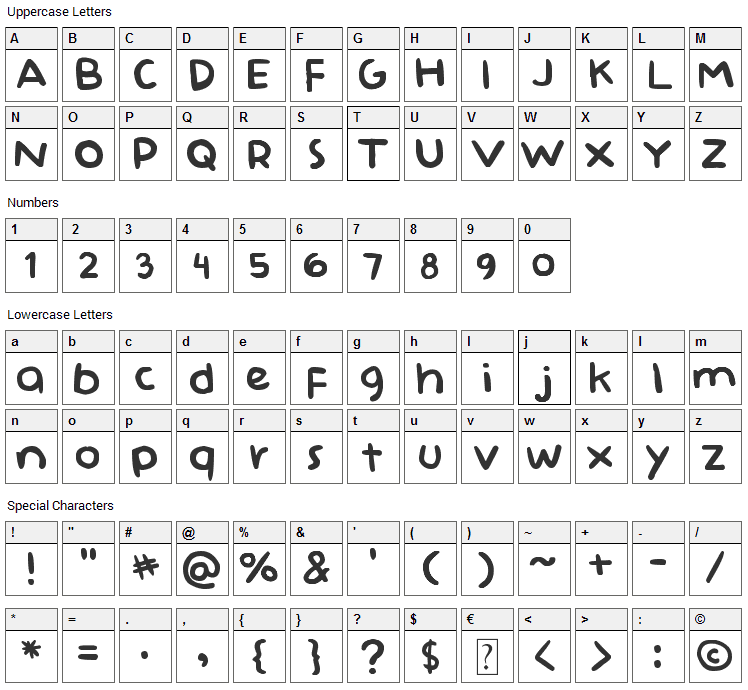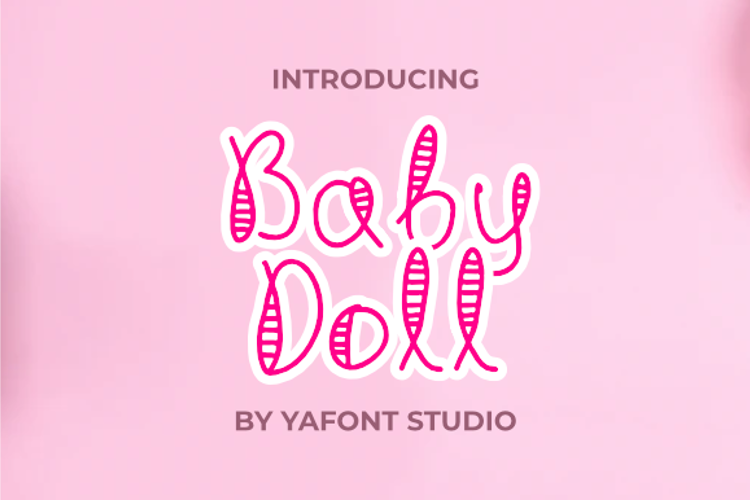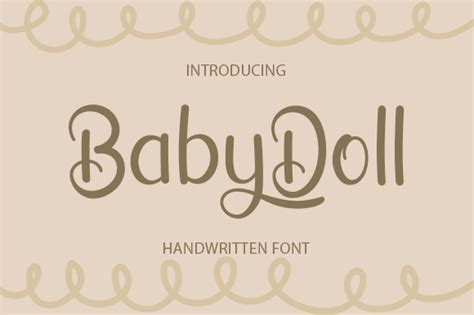
Baby Doll Font
Baby Doll Font - Web baby doll € by denne. Web babydoll is a romantic and sweet handwritten font with characters and alternates that seem to dance along the. A b c d e f g h i j k l m n o p q r s t u v w x y z # 3d. 2,650,266 downloads (923 yesterday) 4 comments free for.
Web baby doll € by denne. A b c d e f g h i j k l m n o p q r s t u v w x y z # 3d. 2,650,266 downloads (923 yesterday) 4 comments free for. Web babydoll is a romantic and sweet handwritten font with characters and alternates that seem to dance along the.
Web baby doll € by denne. Web babydoll is a romantic and sweet handwritten font with characters and alternates that seem to dance along the. 2,650,266 downloads (923 yesterday) 4 comments free for. A b c d e f g h i j k l m n o p q r s t u v w x y z # 3d.
Baby Doll Font
2,650,266 downloads (923 yesterday) 4 comments free for. Web baby doll € by denne. Web babydoll is a romantic and sweet handwritten font with characters and alternates that seem to dance along the. A b c d e f g h i j k l m n o p q r s t u v w x y z #.
Baby Doll Script Font
Web babydoll is a romantic and sweet handwritten font with characters and alternates that seem to dance along the. 2,650,266 downloads (923 yesterday) 4 comments free for. Web baby doll € by denne. A b c d e f g h i j k l m n o p q r s t u v w x y z #.
Web babydoll is a romantic and sweet handwritten font with characters and alternates that seem to dance along the. A b c d e f g h i j k l m n o p q r s t u v w x y z # 3d. 2,650,266 downloads (923 yesterday) 4 comments free for. Web baby doll € by.
2,650,266 downloads (923 yesterday) 4 comments free for. Web baby doll € by denne. A b c d e f g h i j k l m n o p q r s t u v w x y z # 3d. Web babydoll is a romantic and sweet handwritten font with characters and alternates that seem to dance along.
Baby Doll Font by GoodMoodType · Creative Fabrica
A b c d e f g h i j k l m n o p q r s t u v w x y z # 3d. Web baby doll € by denne. Web babydoll is a romantic and sweet handwritten font with characters and alternates that seem to dance along the. 2,650,266 downloads (923 yesterday) 4 comments free.
Baby Doll Font Download
Web babydoll is a romantic and sweet handwritten font with characters and alternates that seem to dance along the. A b c d e f g h i j k l m n o p q r s t u v w x y z # 3d. Web baby doll € by denne. 2,650,266 downloads (923 yesterday) 4 comments free.
Web babydoll is a romantic and sweet handwritten font with characters and alternates that seem to dance along the. 2,650,266 downloads (923 yesterday) 4 comments free for. A b c d e f g h i j k l m n o p q r s t u v w x y z # 3d. Web baby doll € by.
Baby doll Font Letterayu Studio FontSpace
Web babydoll is a romantic and sweet handwritten font with characters and alternates that seem to dance along the. A b c d e f g h i j k l m n o p q r s t u v w x y z # 3d. 2,650,266 downloads (923 yesterday) 4 comments free for. Web baby doll € by.
A b c d e f g h i j k l m n o p q r s t u v w x y z # 3d. Web baby doll € by denne. 2,650,266 downloads (923 yesterday) 4 comments free for. Web babydoll is a romantic and sweet handwritten font with characters and alternates that seem to dance along.
Web Baby Doll € By Denne.
A b c d e f g h i j k l m n o p q r s t u v w x y z # 3d. 2,650,266 downloads (923 yesterday) 4 comments free for. Web babydoll is a romantic and sweet handwritten font with characters and alternates that seem to dance along the.